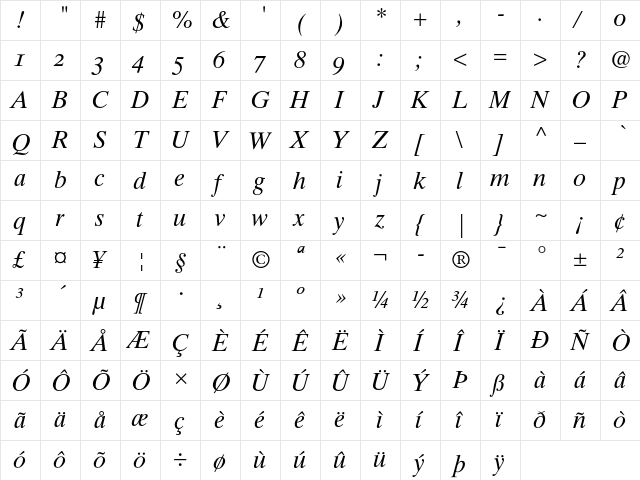
Asteria Italic
| Foundry | Semata |
| Designer | Semata |
Design Context for Asteria Typeface
Asteria takes a measured approach to typography — its balanced proportions and neutral character make it a reliable workhorse for both digital and print work. The slanted form adds forward momentum and visual energy.
Pro Tip: Use Asteria for emphasis, pull quotes, and subheadings where its slanted energy can add rhythm to the layout.